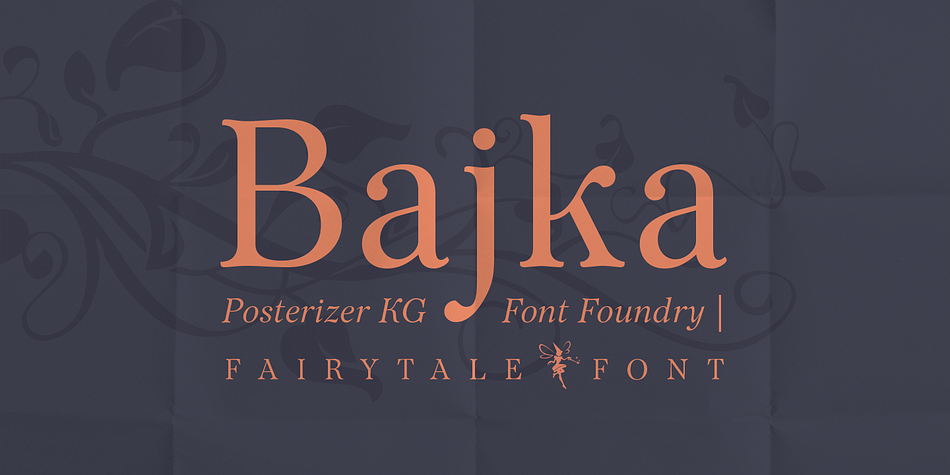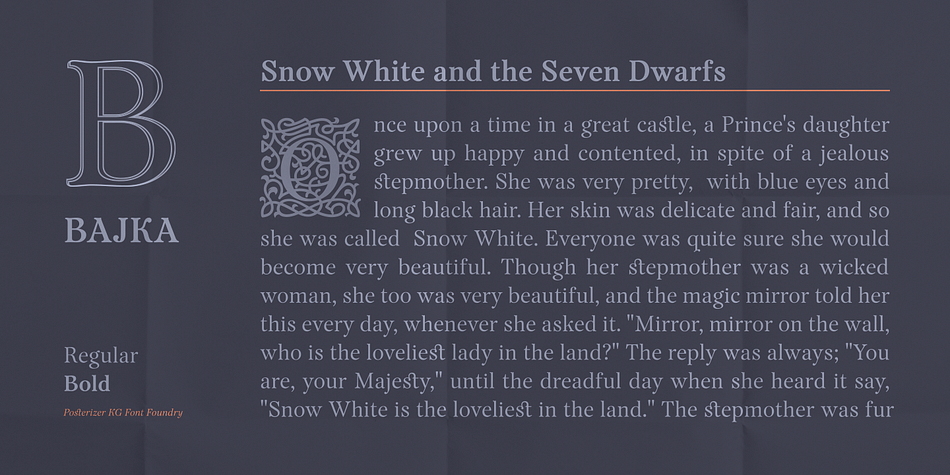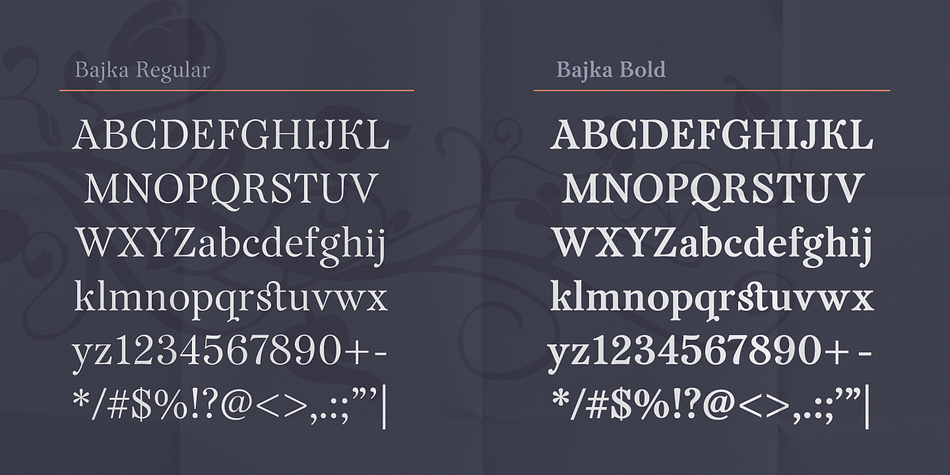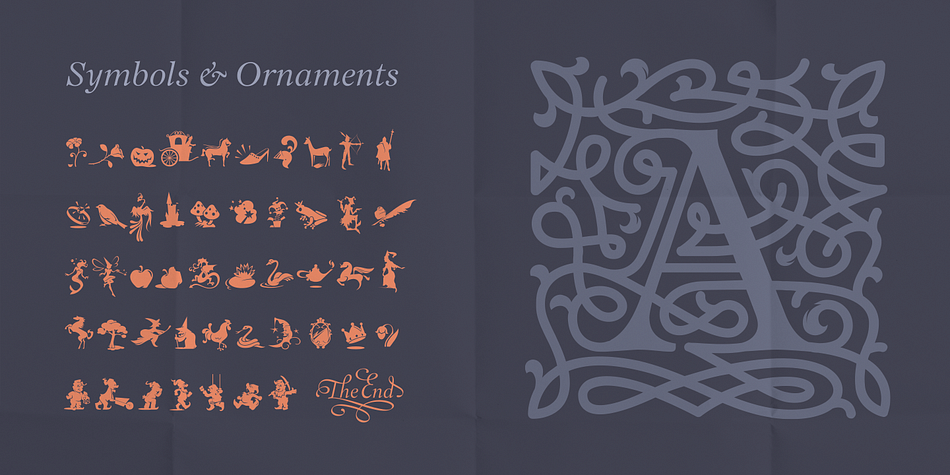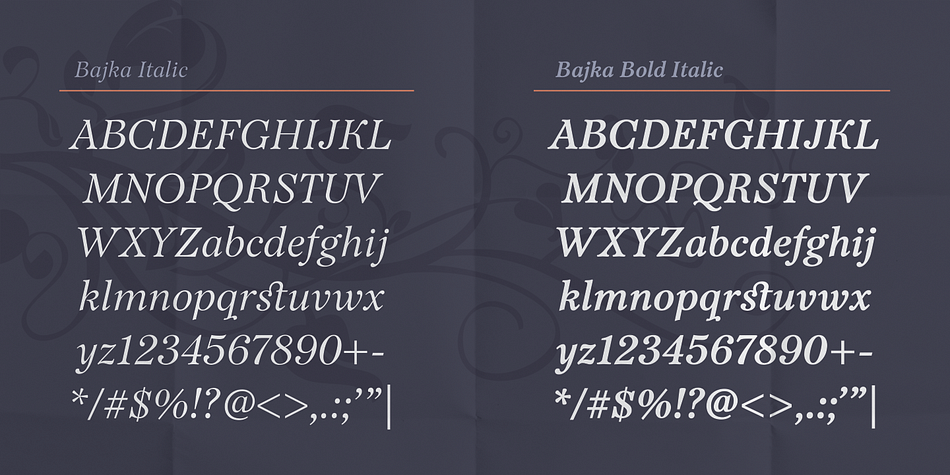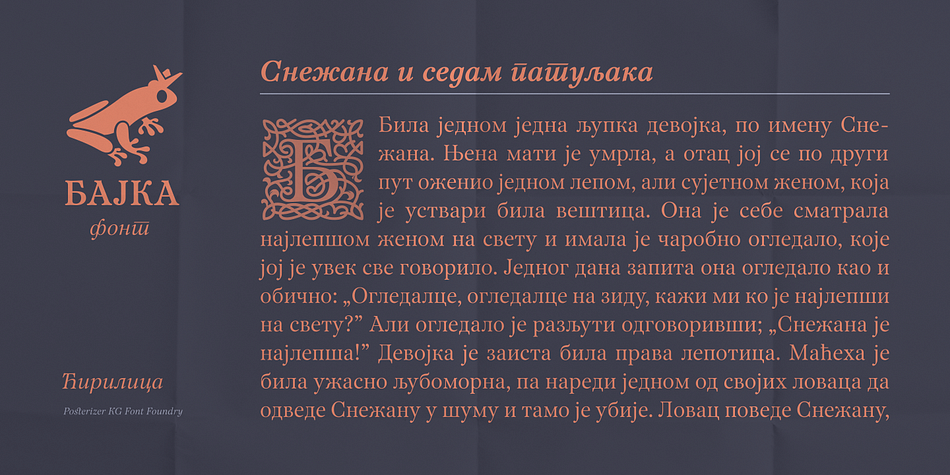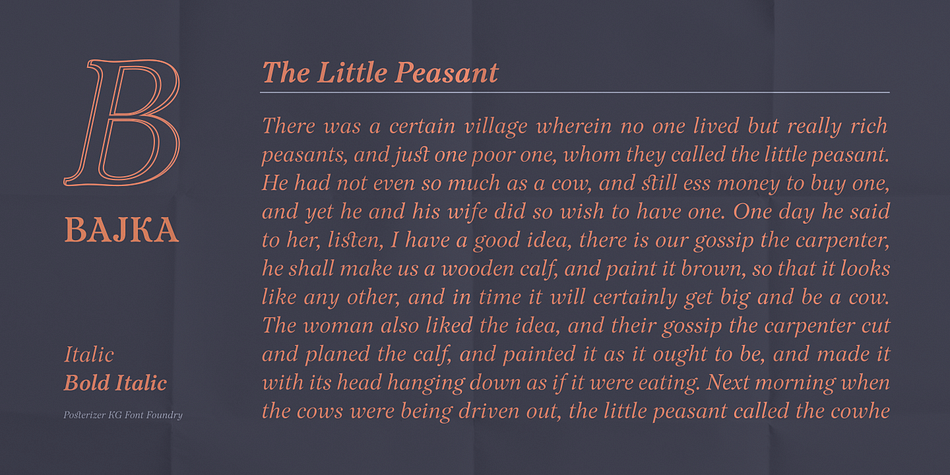
Designed by Lazar Dimitrijević, Bajka is a dingbat and serif font family. This typeface has five styles and was published by Posterizer KG.
Bajka (or Fairy tale in English) is a Baskerville font family made for children’s fairy tale books. Originally designed in 2010 ([www.behance.net/gallery/483582/Fairy-tale-font Fairy tale Font]).
Today the family contains Regular, Bold, Italic, Bold Italic, Symbols and Ornaments (Latin, Cyrillic, dingbats, ornamental caps).